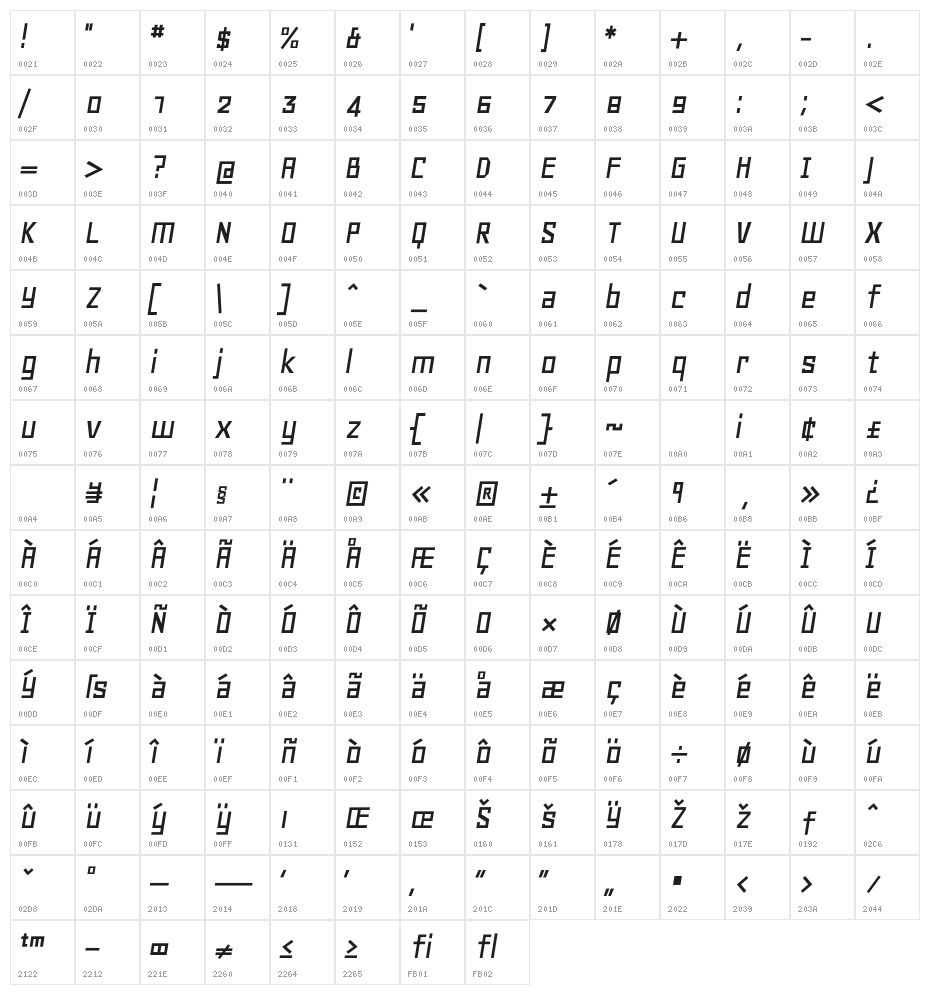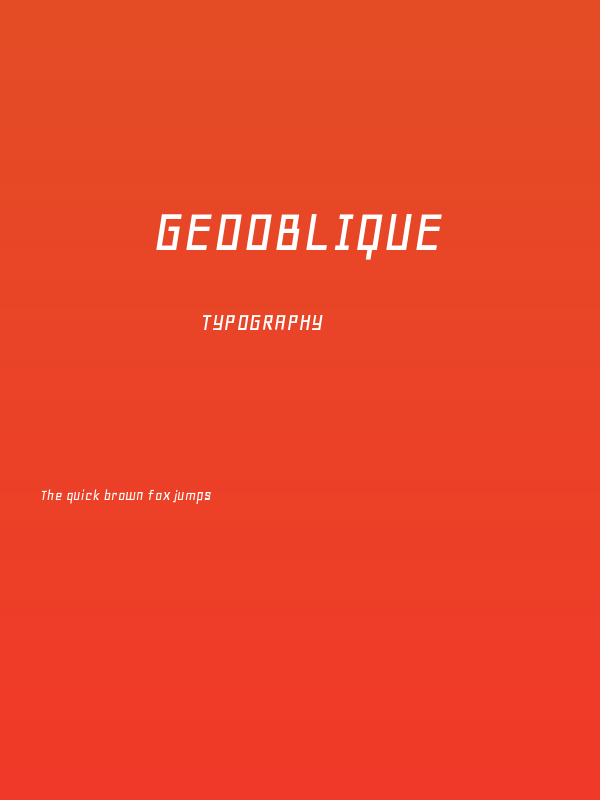
GeoOblique Font
GeoOblique Description
This font features a modern and geometric design with an oblique slant, giving it a dynamic and forward-moving appearance. The characters are constructed with straight lines and sharp angles, creating a sense of precision and clarity. The uppercase and lowercase letters maintain a consistent style, with a uniform stroke width that enhances readability. The numerals and special characters are designed to match the overall aesthetic, ensuring a cohesive look across all text elements. The font's structure is both functional and stylish, making it suitable for a variety of applications.
| Proposed Projects | Ideal for branding, advertising, and editorial design projects that require a contemporary and dynamic look. |